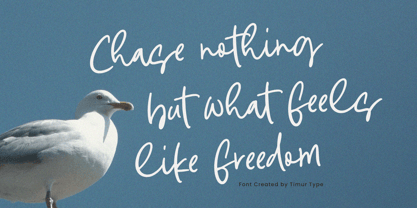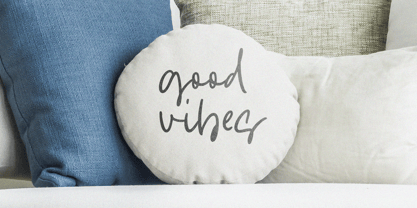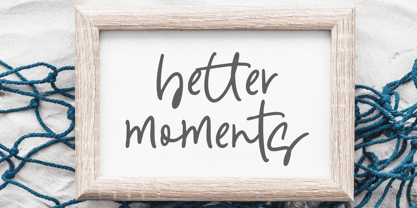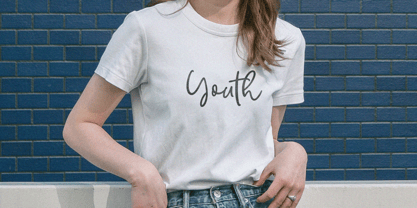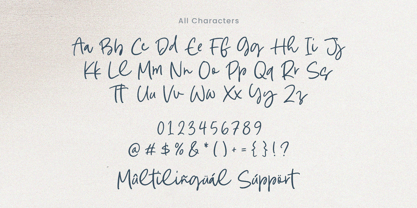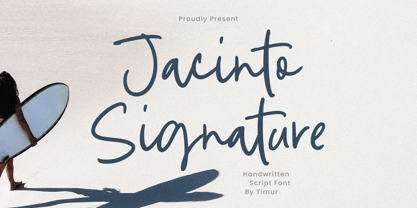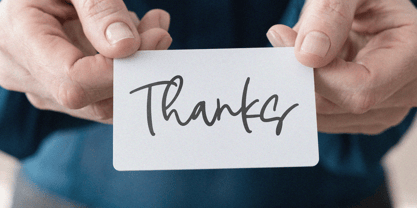
Jacinto Signature
by Timurtype
The Jacinto Signature Font Family was designed by Wara Sigit Tri Pamungkas and published by Timurtype. Jacinto Signature contains 1 styles. More about this family
Jacinto Signature is a Handwritten Script Font
Jacinto Signature is a stylish handwritten script font that exudes elegance charm. With smooth, flowing strokes and natural letterforms, it captures the look of authentic handwriting—perfect for logos, invitations, branding, and social media graphics. Jacinto Signature adds a touch of sophistication and warmth to any design.
Jacinto Signature Font also supports multilingualism